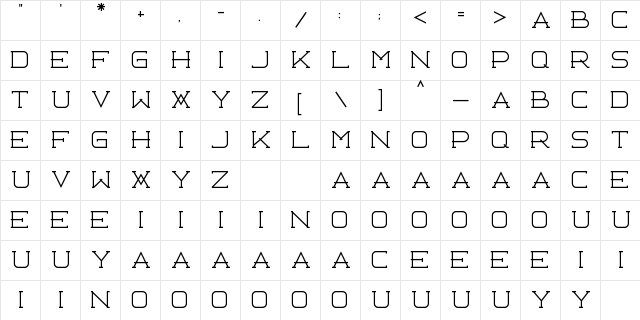
Libercity Thin Regular
| Designer | Riffi Ridani |
Design Context for Libercity Thin Typeface
Libercity Thin is a composed and adaptable typeface that performs quietly and consistently across a wide range of design contexts. The delicate stroke weight brings airiness and refinement to layouts.